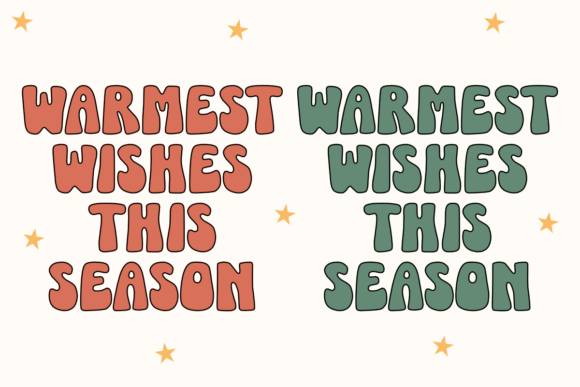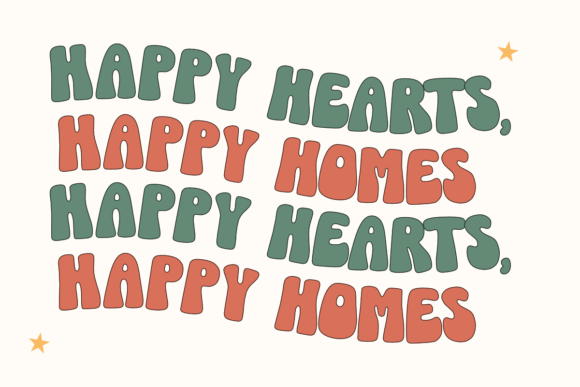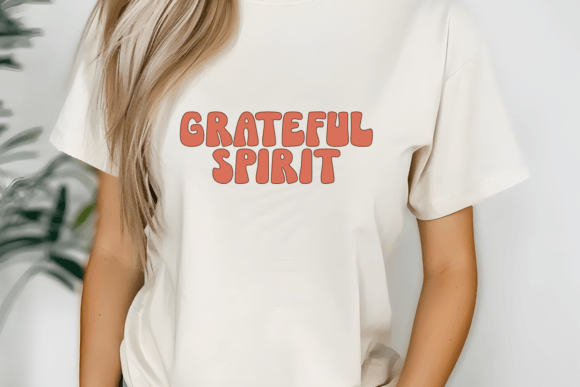
Introduction to Jingle Grinch Font
Jingle Grinch is a fun, bold, retro display font perfect for Christmas.
Inspired by the typography found on festive t-shirt designs, this font is ideal for all your holiday needs Use it for t-shirts, invitations, cards, stickers, keychains, wall art, pillows, quotes, hoodies, crafts, and more.